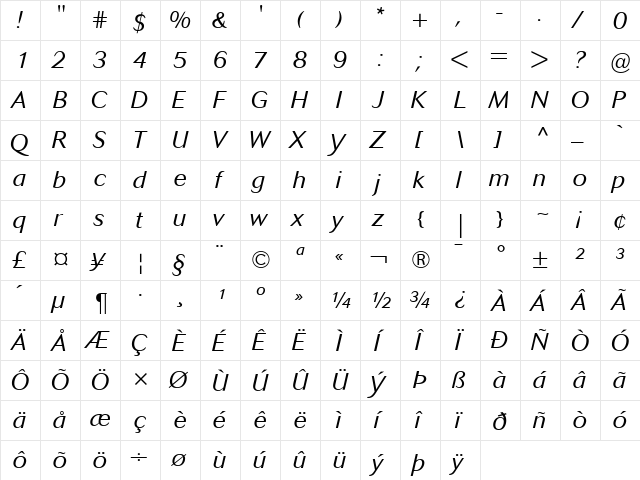
Cosmos Italic
Design Context for Cosmos Typeface
Cosmos takes a measured approach to typography — its balanced proportions and neutral character make it a reliable workhorse for both digital and print work. The slanted form adds forward momentum and visual energy.
Pro Tip: Try Cosmos for annotation and caption copy alongside an upright companion — the contrast in angle creates a dynamic but ordered typographic system.